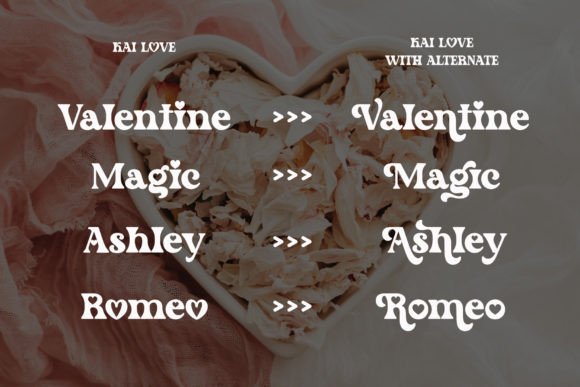
Kai Love Font
Kai Love is a modern serif font. This font is a special font to celebrate love and affection because it has a heart accent.
Kai Love has modern, vintage, and lovely feels.
It is a beautiful and elegant font that will deliver love and vintage vibes to your design. It can be used for a wide range of designs, such as Valentine’s Day, crafting, stickers, t-shirts, sublimation, quotes, and many more.